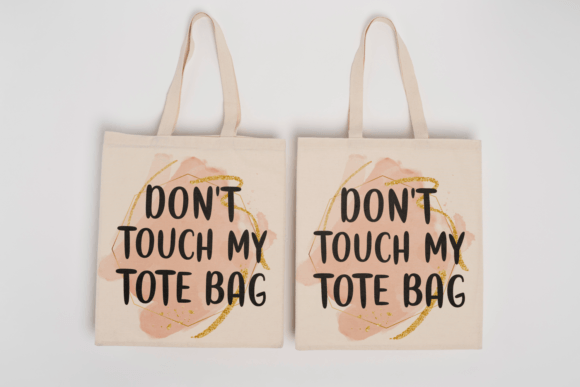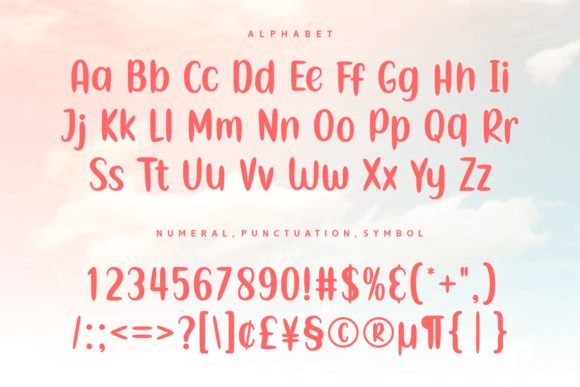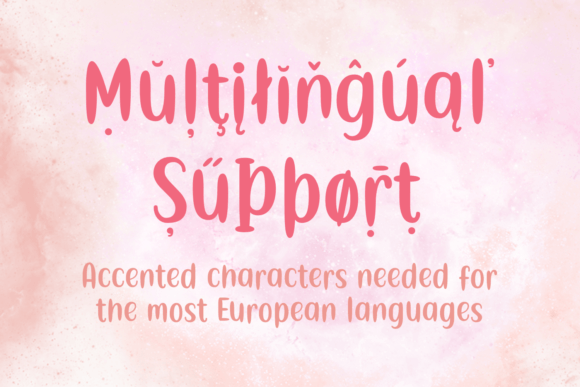
Introduction to Cute Meira Font
As a designer, you’ve probably found yourself stuck in a creative rut, staring at a blank page, searching for the perfect font to bring your idea to life. You scroll through font libraries, trying to find the perfect combination of style and personality. And then, like a breath of fresh air, you stumble upon Cute Meira Font – a beautiful, handwritten font that adds a touch of cuteness to any design.
With its high-quality design and transparent background, Cute Meira Font is the perfect design resource for any creative project. Whether you’re working on a children’s book, a wedding invitation, or a social media campaign, this font is sure to bring a smile to your face and add a touch of whimsy to your typography.
Key Features of Cute Meira Font
- High-quality design resource ideal for creative projects, including digital art and graphic designs.
- Features a transparent background, allowing for seamless integration with various design elements and backgrounds.
- Comes in a single font style with multiple weights, offering versatility for different design applications.
- Designed with a cute and playful aesthetic, making it perfect for children’s books, educational materials, and family-friendly projects.
- Perfect for designers seeking a free, high-quality font for their creative projects, from logos and branding to print materials and digital graphics.
Honest Review: Cute Meira Font
I recently came across the Cute Meira Font and I must say, it’s a lovely addition to any creative project. As a designer, I’m always on the lookout for high-quality design resources, and this font definitely fits the bill.
One of the things that stands out about this font is its versatility. It’s perfect for use in a variety of creative projects, from digital art to print materials. The font’s simple yet elegant design makes it a great choice for projects where you want to convey a sense of sweetness and innocence.
Here are some of the things that work well with this font:
- ✨ The font’s transparent background makes it easy to use in layered designs.
- ✨ The font is highly customizable, allowing you to adjust the size, color, and style to suit your needs.
While the Cute Meira Font is a great resource, there are a few limitations to be aware of:
- ⚠️ The font may not be suitable for use in large block of text, as it can become difficult to read.
- ⚠️ Some users may find the font’s simplicity too bland or uninteresting.
Overall, I’m really impressed with the Cute Meira Font. It’s a high-quality design resource that’s perfect for creative projects where you want to add a touch of sweetness and innocence. With its transparent background, free download, and high level of customizability, it’s a great choice for designers of all levels.
Cute Meira Font
The Cute Meira Font is a high-quality, free download design resource perfect for creative projects. With its unique and playful style, this font is ideal for adding a touch of whimsy to your designs. Its transparent background makes it easy to customize and combine with other design elements.
Tips for Getting the Most Out of Cute Meira Font
Experiment with different font sizes and styles to achieve the desired effect.
Combine Cute Meira Font with other design elements to create a unique and eye-catching design.
Cute Meira Font is perfect for:
Designing children’s party invitations and decorations.
Creating social media graphics and advertisements.
Adding a playful touch to business cards and brochures.